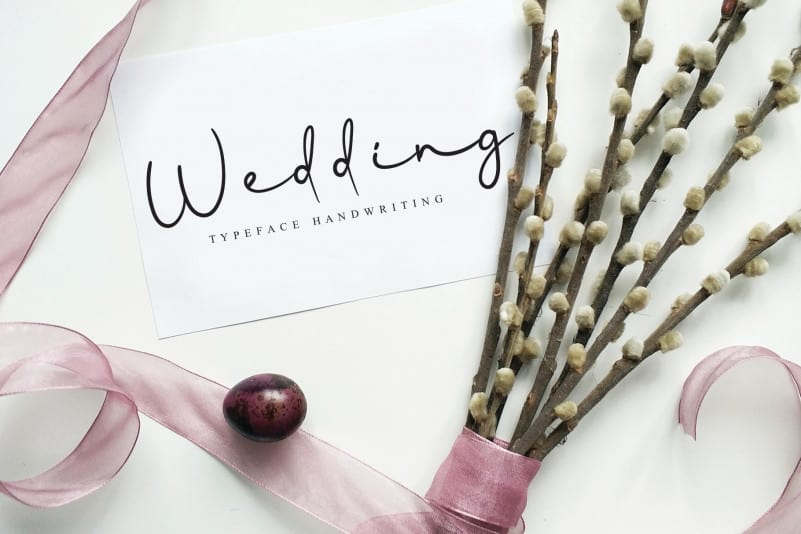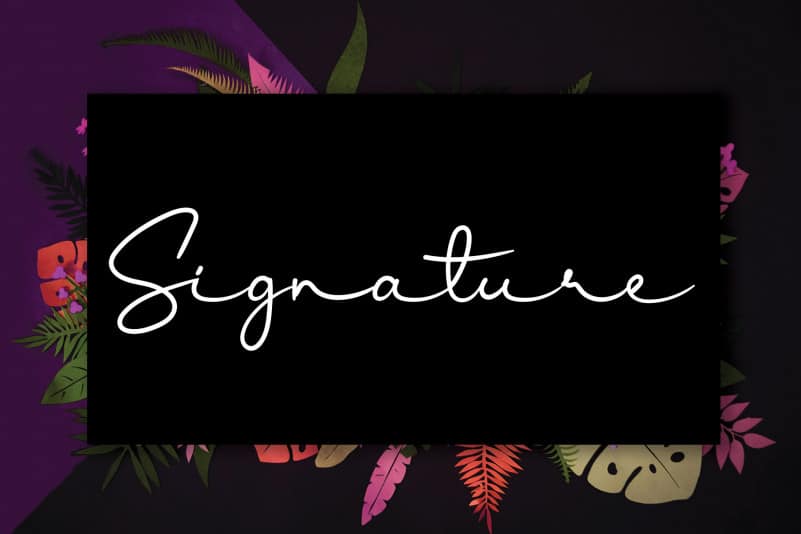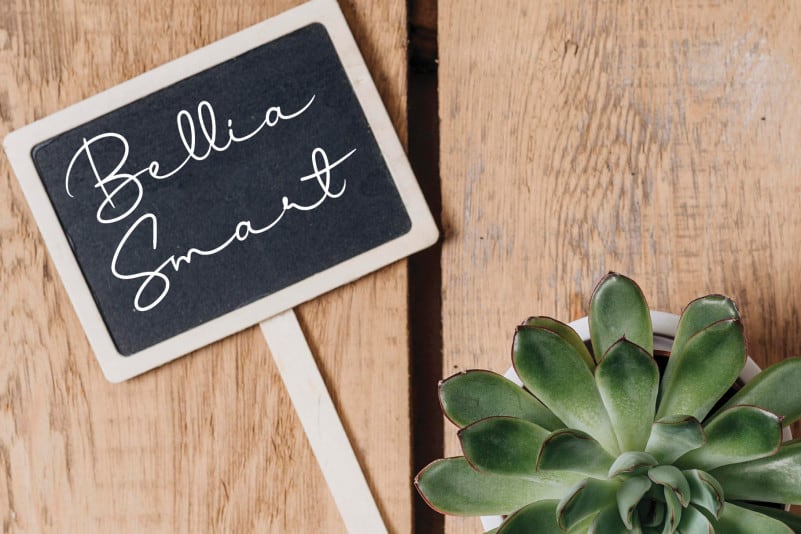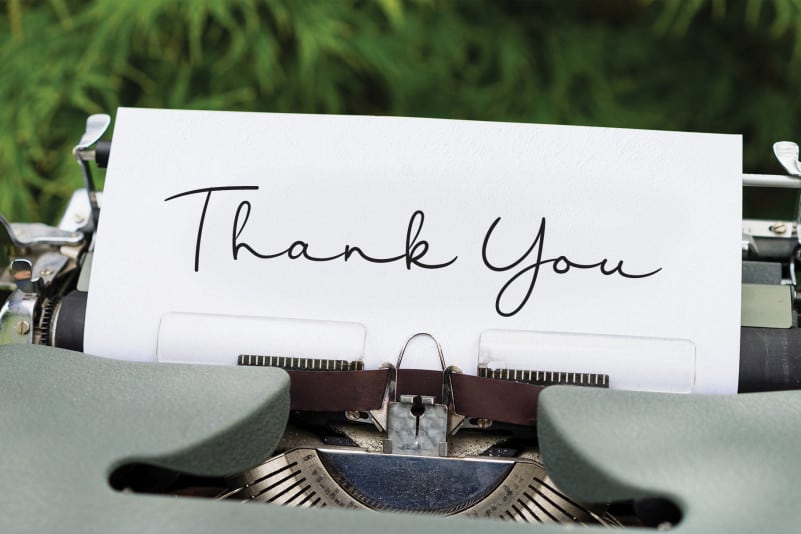
Lantana Script Font
Lantana Script Font is a dreamy and romantic handwritten font. It looks stunning on wedding invitations, thank you cards, quotes, greeting cards, logos, business cards and every other design which needs a handwritten touch.